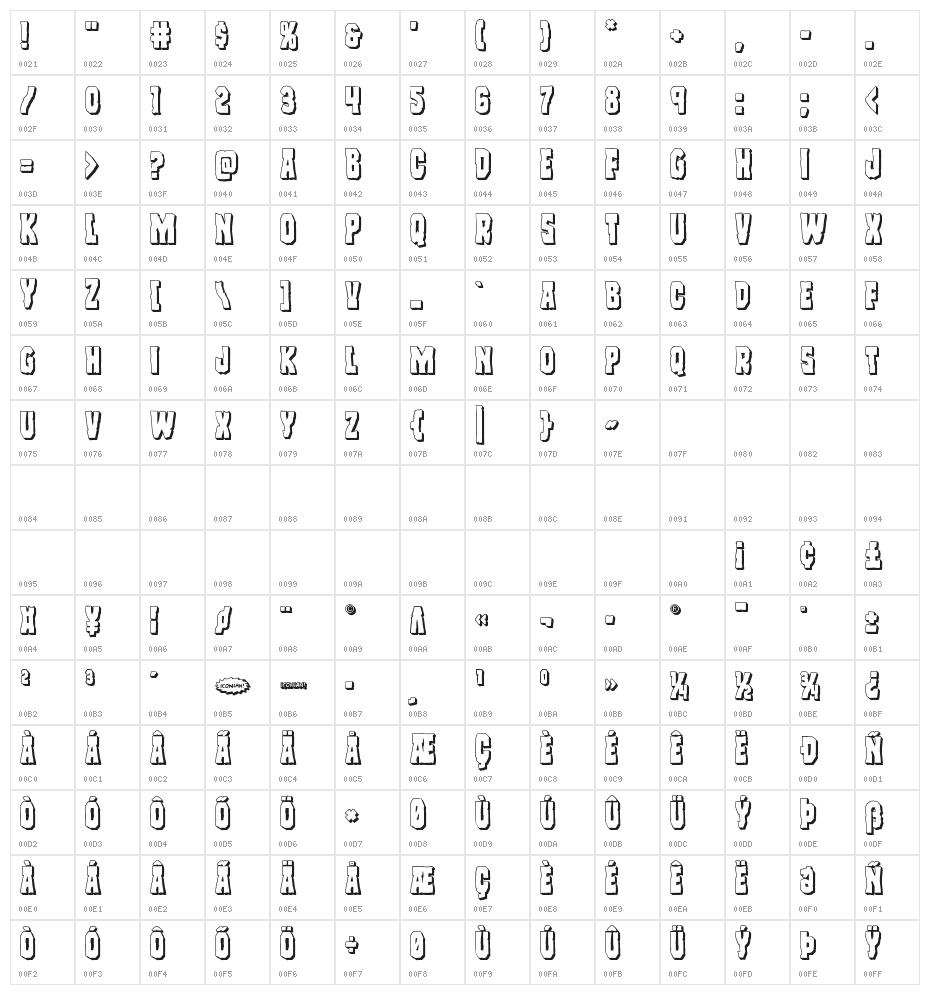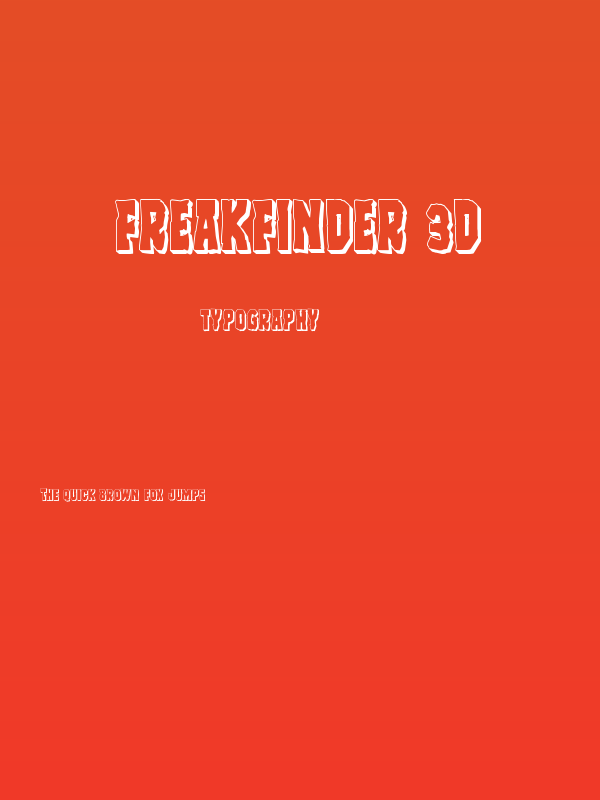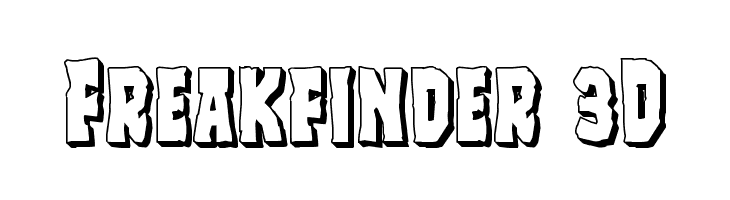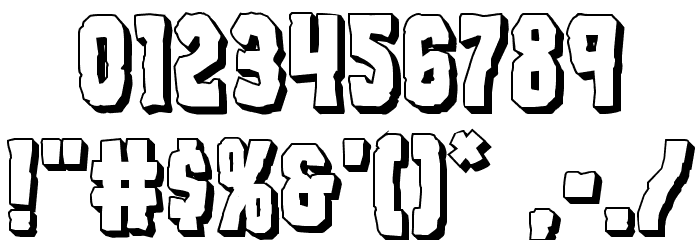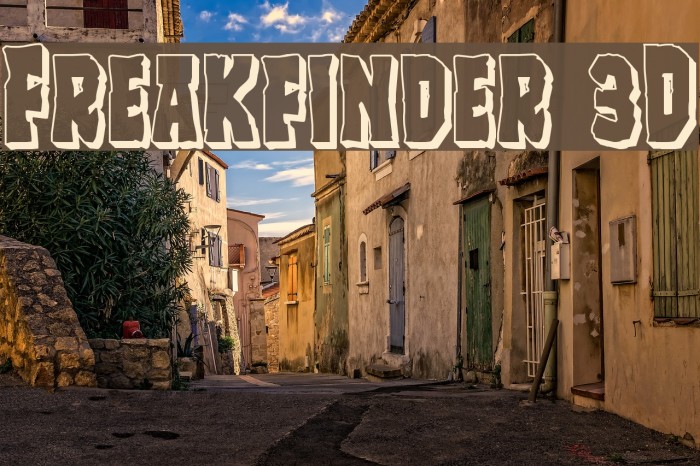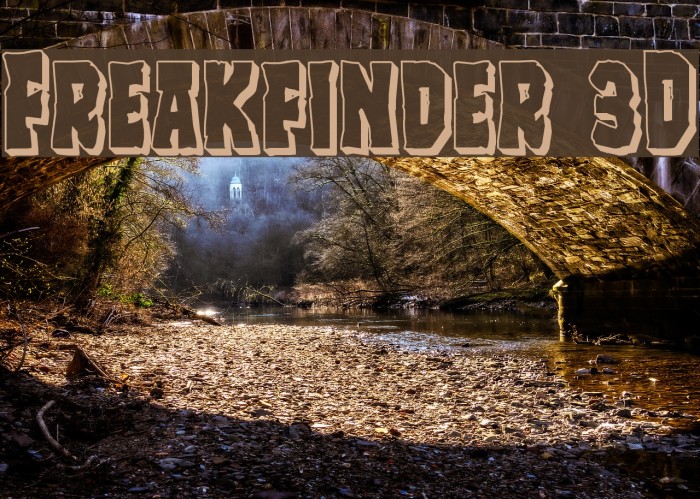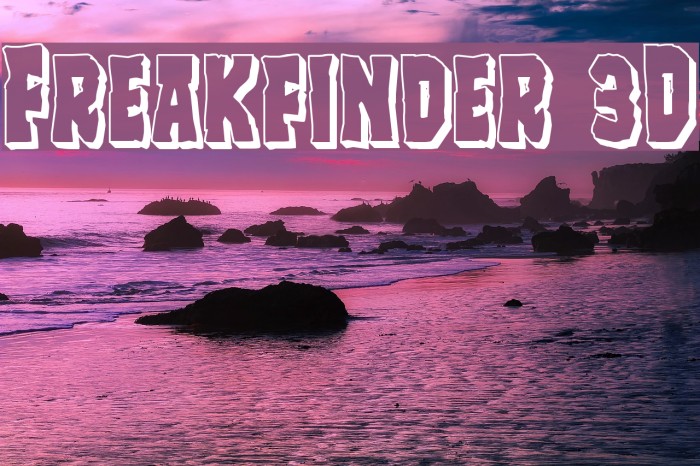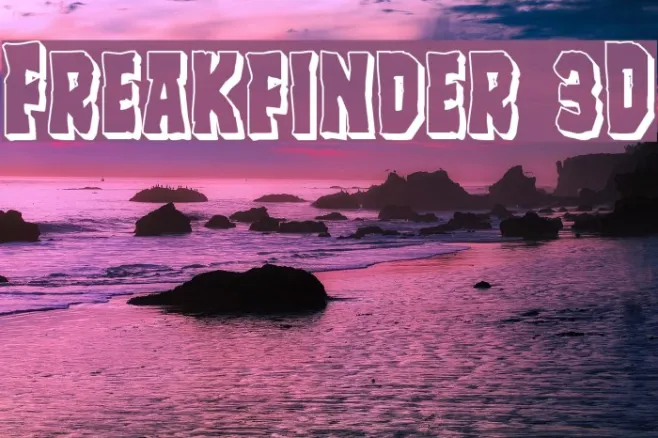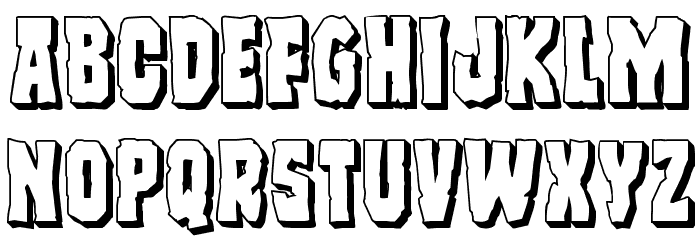
Freakfinder 3D Font
Freakfinder 3D Description
This font features a bold, three-dimensional appearance with a rugged, hand-drawn style. The characters are outlined with a thick black border, giving them a striking and impactful look. The interior of each letter is filled with a white space, enhancing the 3D effect. The font has a playful and dynamic feel, making it suitable for eye-catching designs. The uppercase and lowercase letters maintain a consistent style, with the numbers and special characters following the same design principles. This font is ideal for projects that require a bold and adventurous aesthetic.